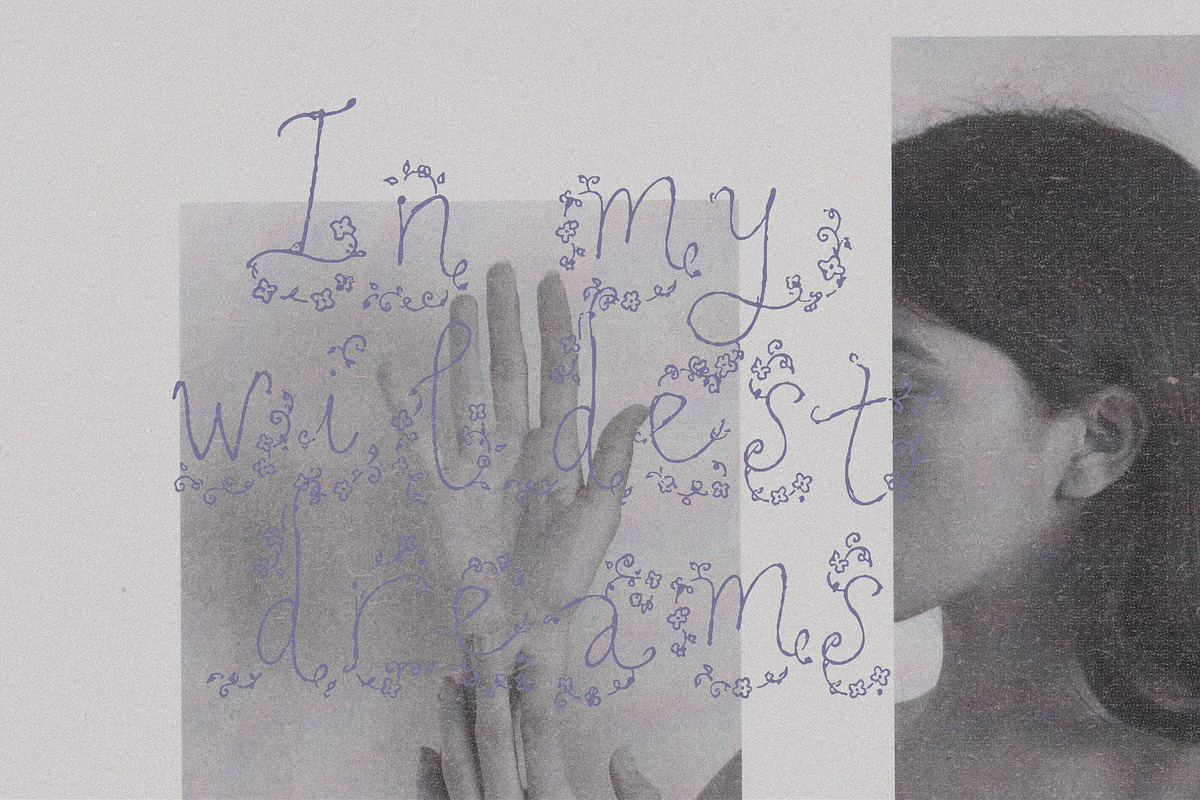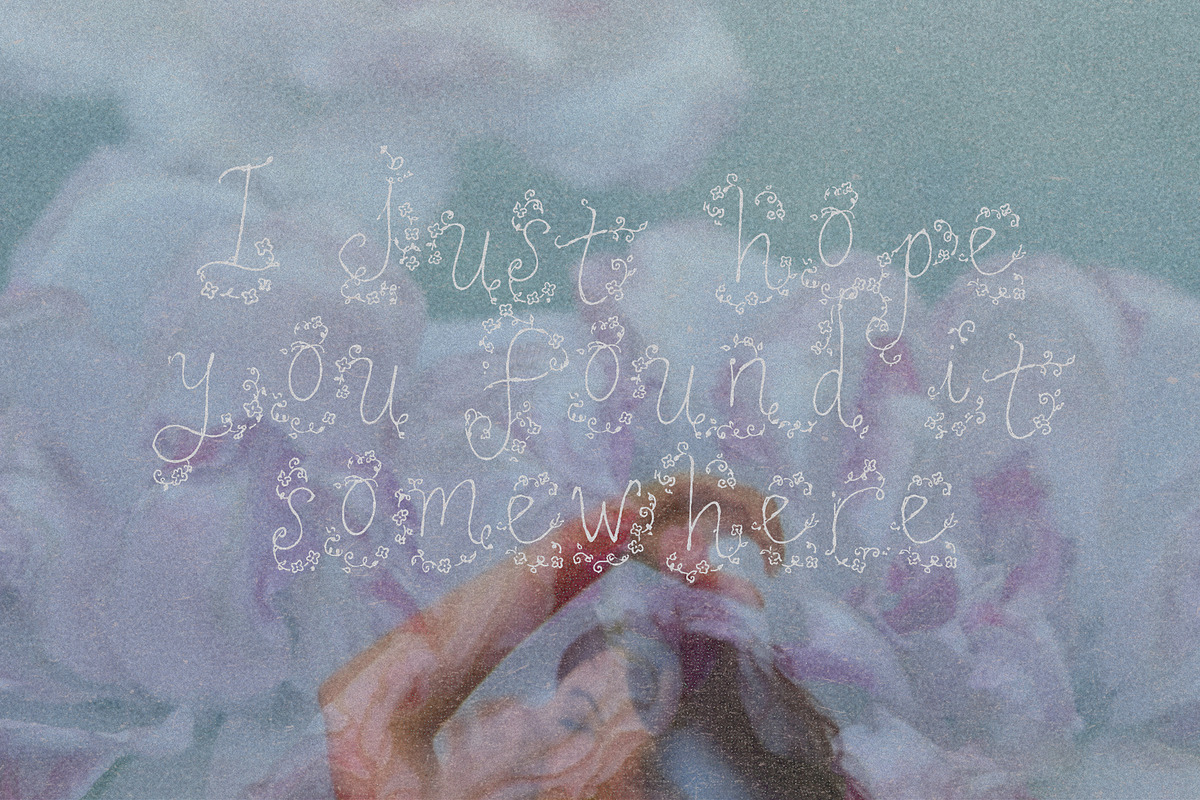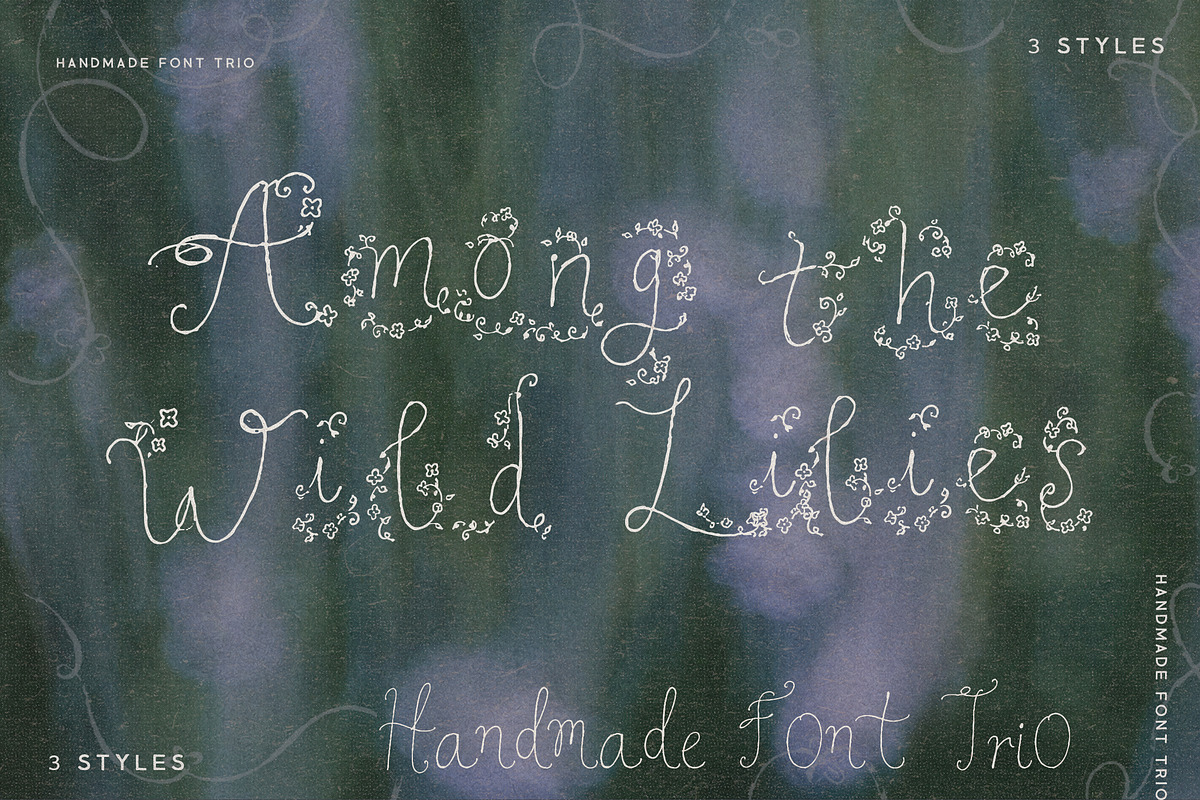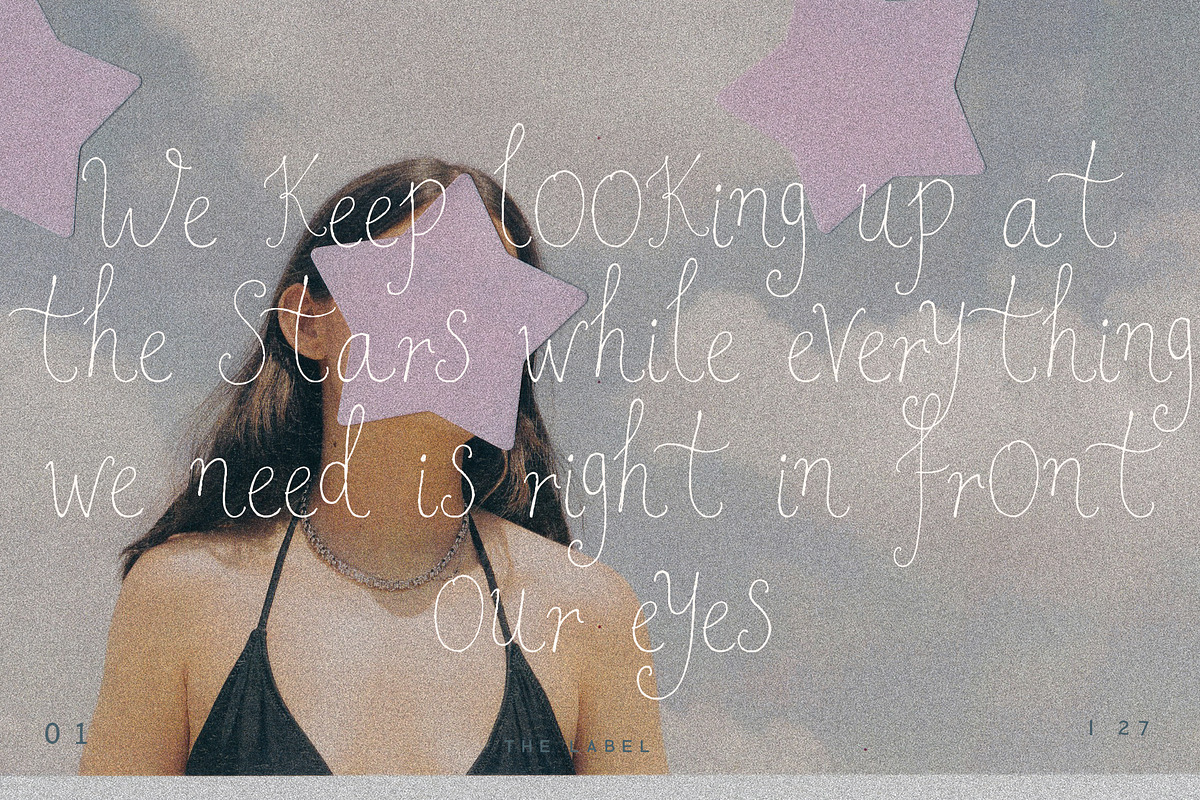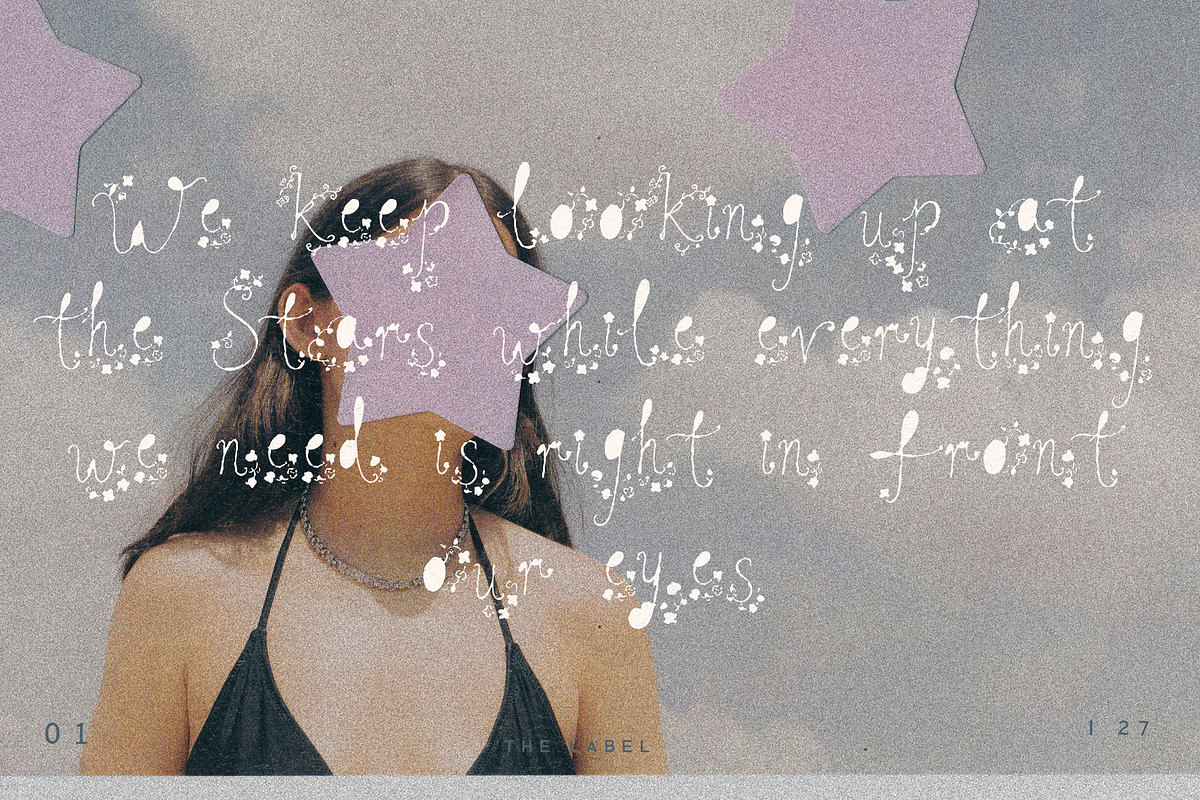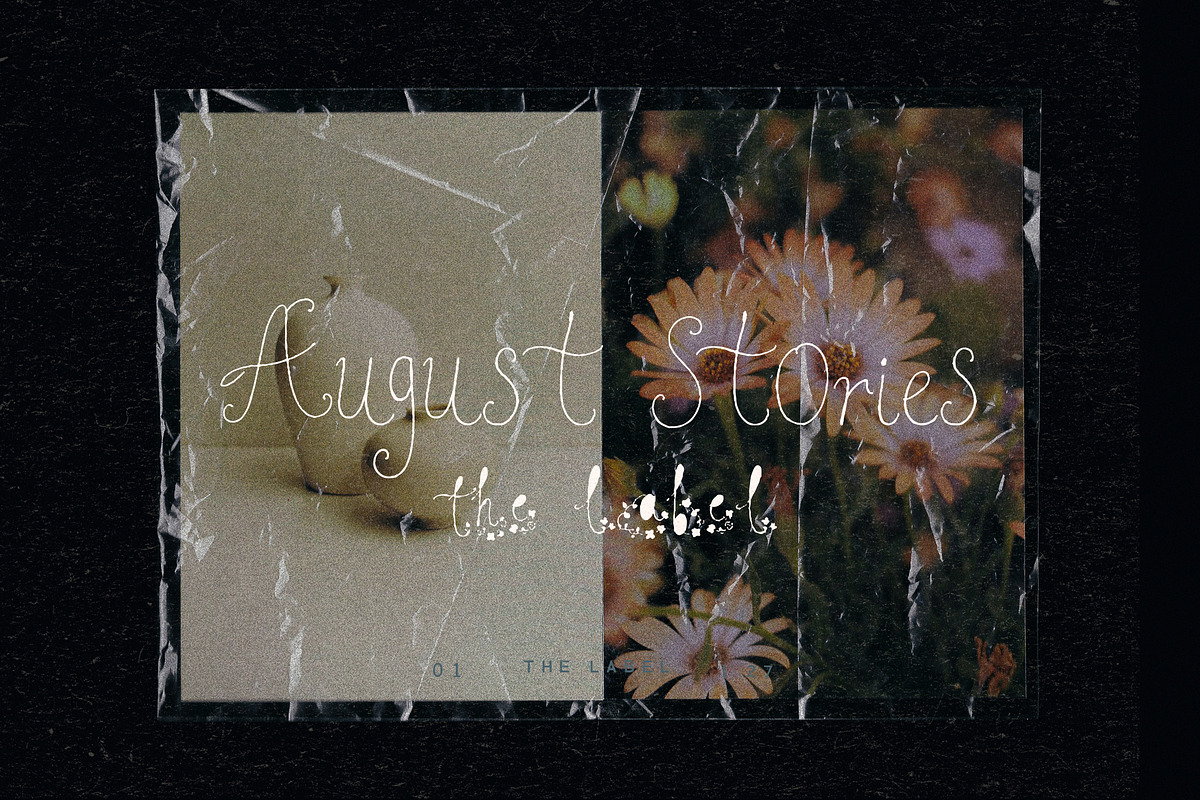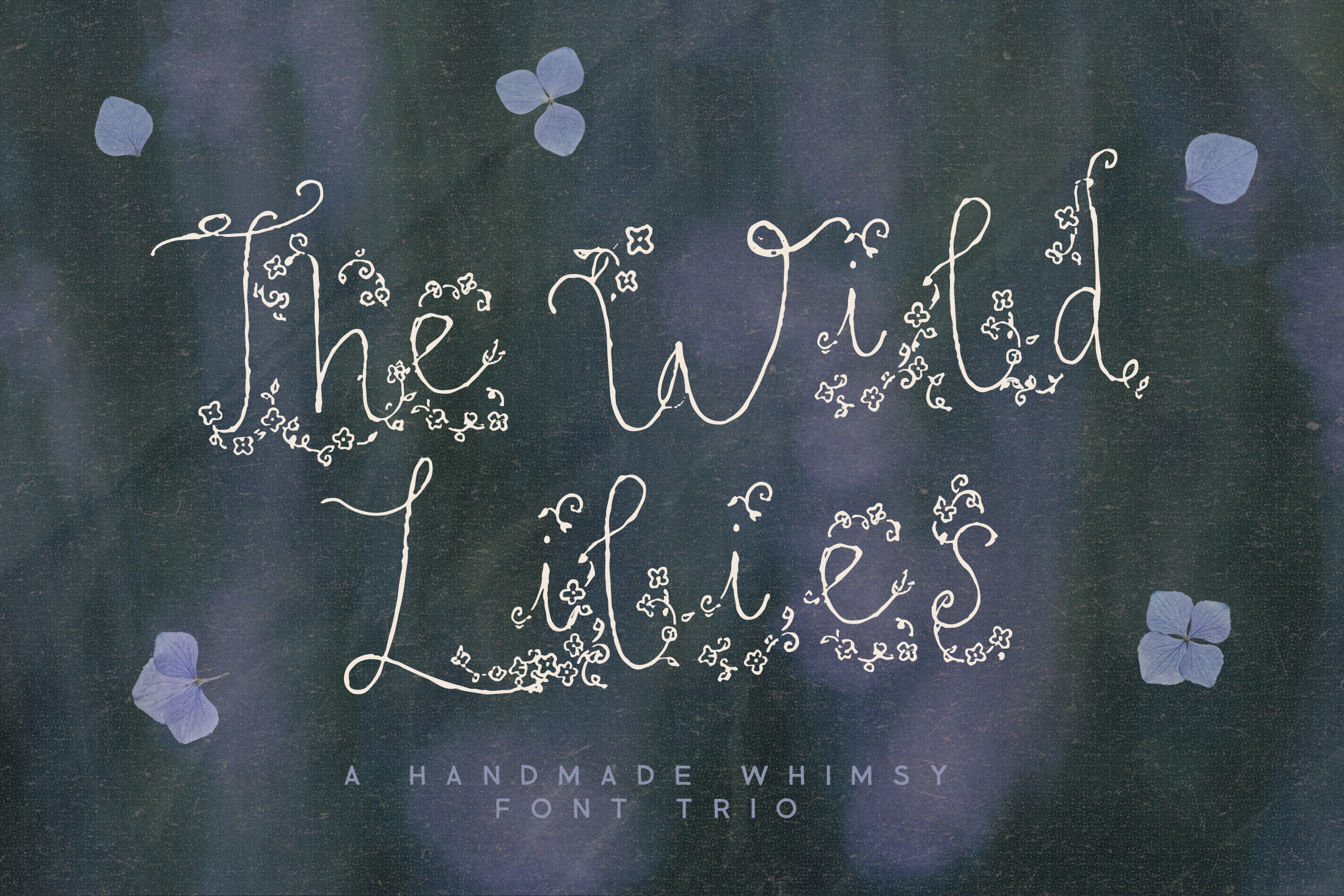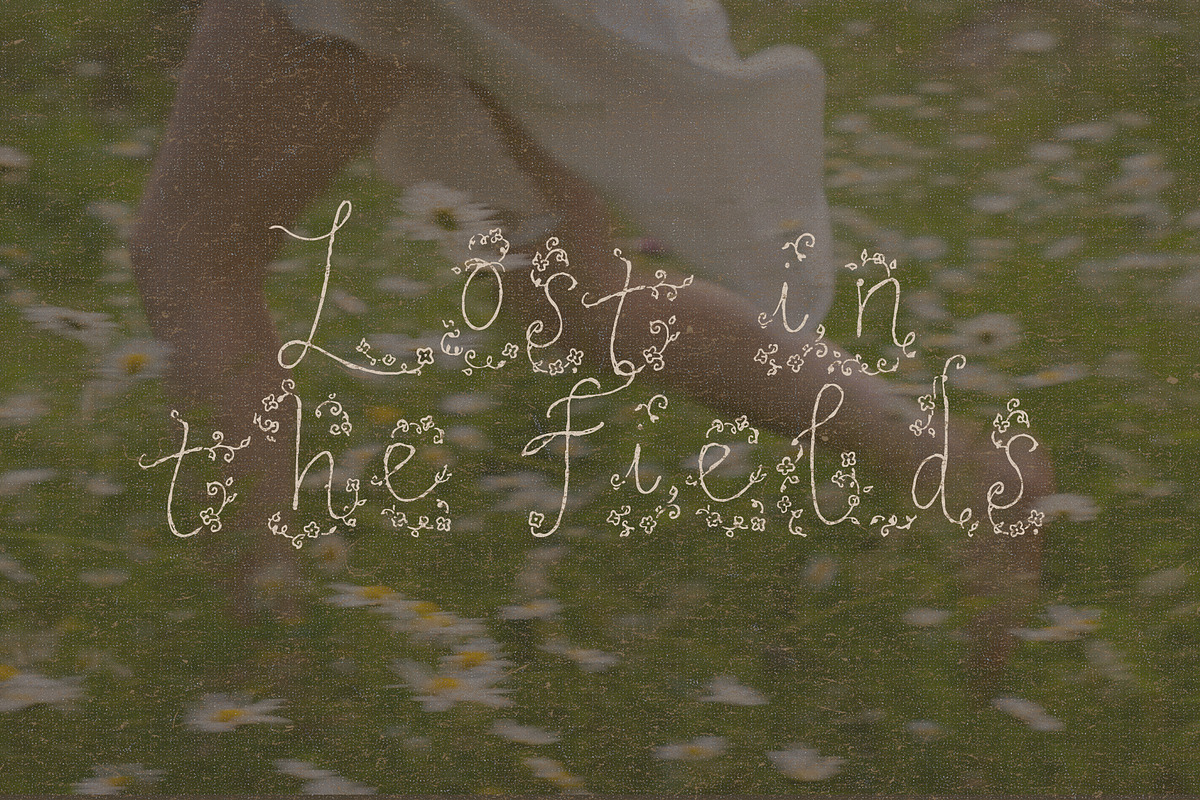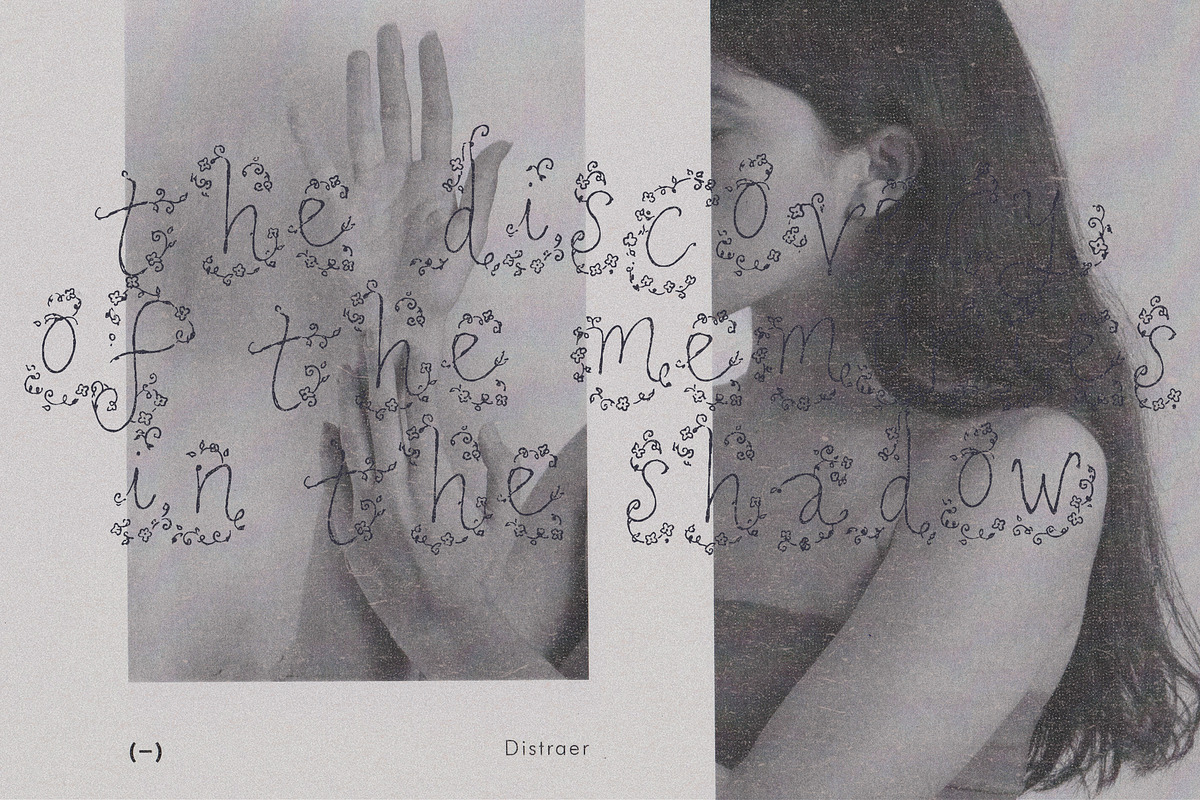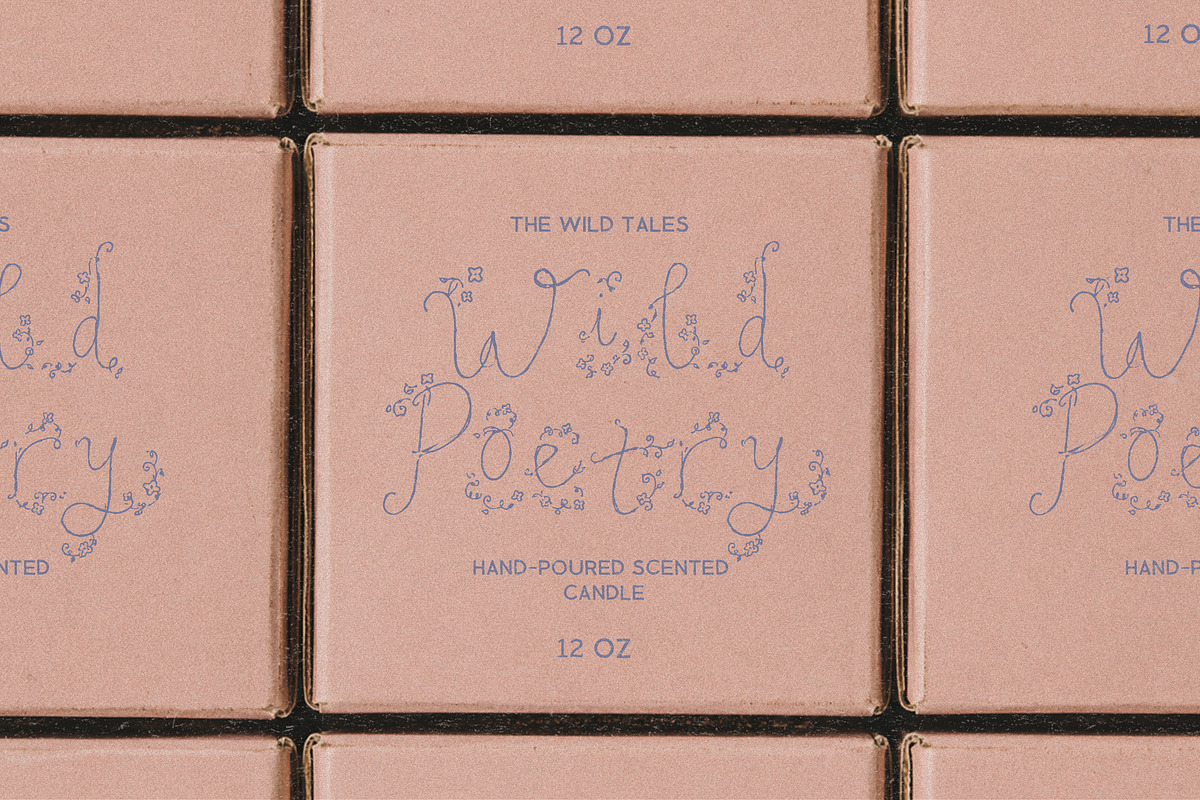
Whimsical Floral Script Font Trio
Wild Lilies is a floral script font trio that with a poetic, slightly mysterious little soul. Wild Lilies was made for designs that want to feel romantic, playful, and a touch dark, like wildflowers growing through old garden gates or love letters tucked inside vintage books.
This font comes with three beautiful styles: a decorative floral version with blooming letter details, a plain version for cleaner layouts, and an experimental cut-out style for more artistic, editorial moments. Use them together for layered, expressive typography, or keep it simple when your design needs just a hint of floral charm.
Perfect for whimsical branding, romantic packaging, wedding stationery, book covers, poetry prints, boutique logos, greeting cards, social media graphics, dark romance designs, and dreamy floral projects with a little bite.